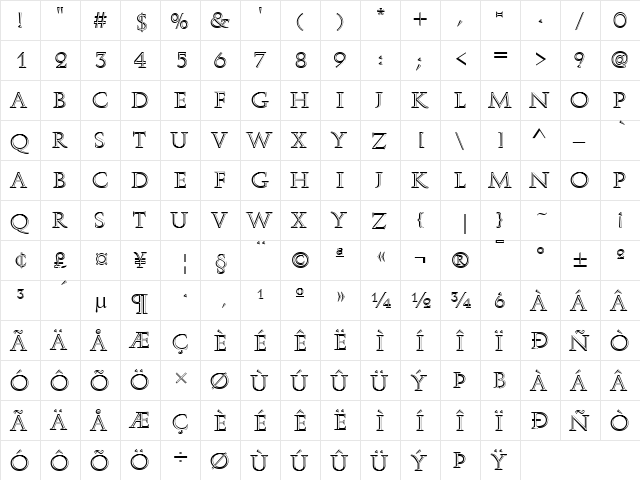
Caesar Open Regular
Caesar Open offers clean, dependable letterforms without strong stylistic allegiance, making it a practical choice for designers who need flexibility.